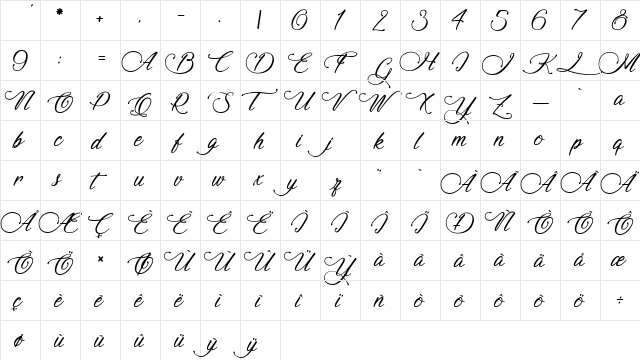
Signature of the Ancient Regular
Design Context for Signature of the Ancient Typeface
Signature of the Ancient is a composed and adaptable typeface that performs quietly and consistently across a wide range of design contexts.
Pro Tip: Use Signature of the Ancient in both headline and body roles to test its range before committing to a single application.